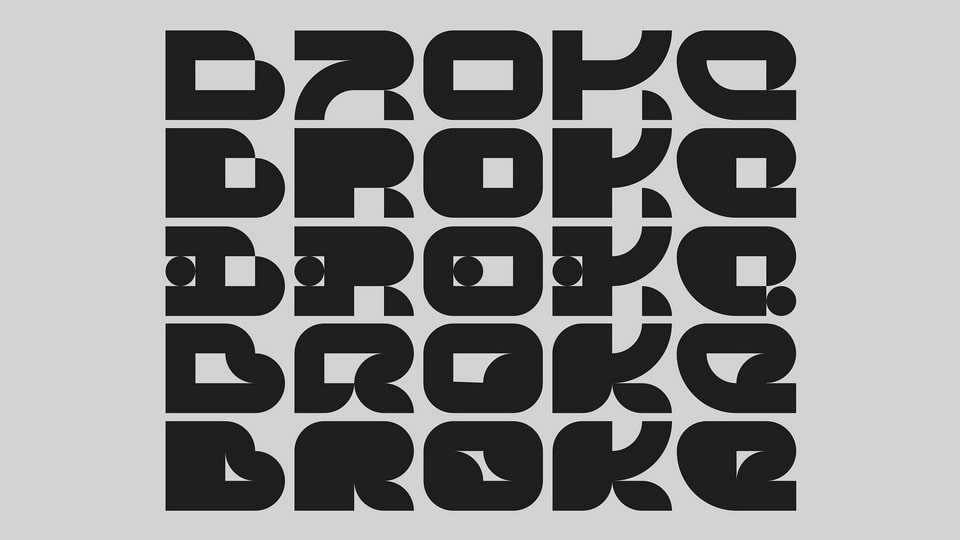
Download Broke font, a tiny typeface inspired by Lego. This display font using only 4 geometric shapes. The idea of using simple geometric forms to create a constructor system font.
Designer: Anton Masalov